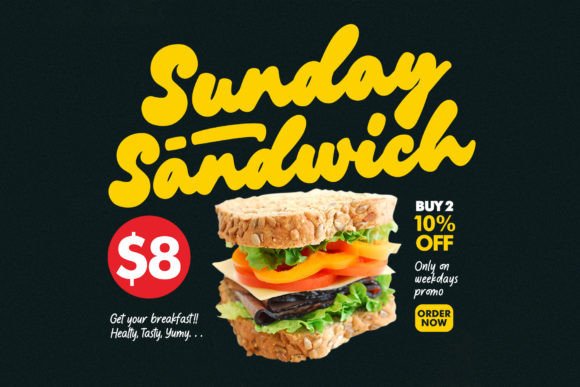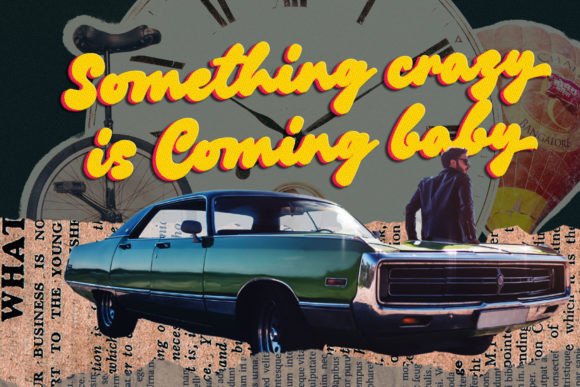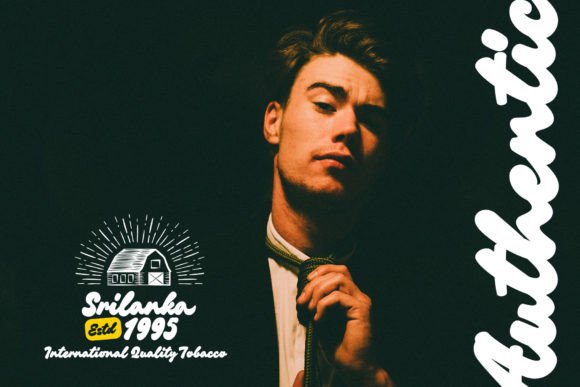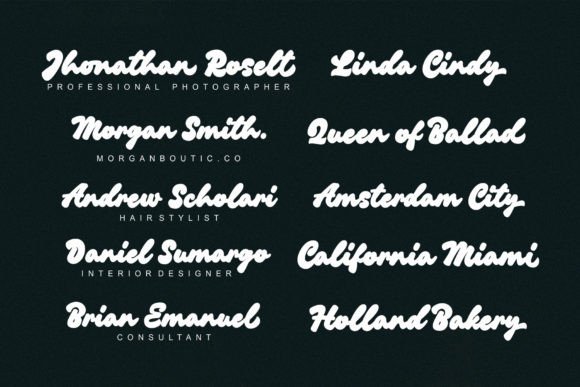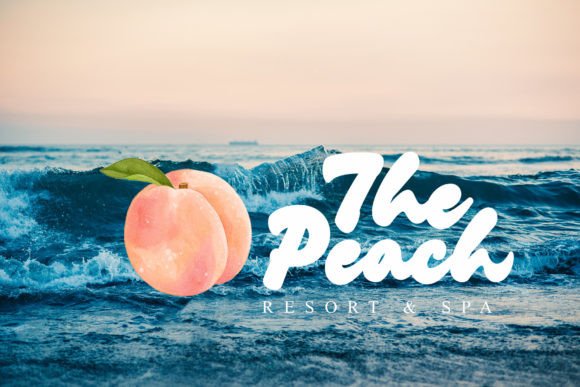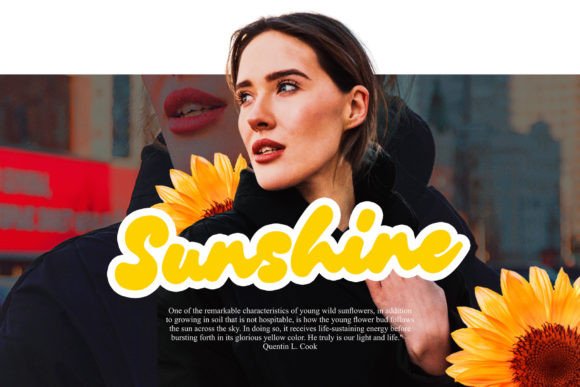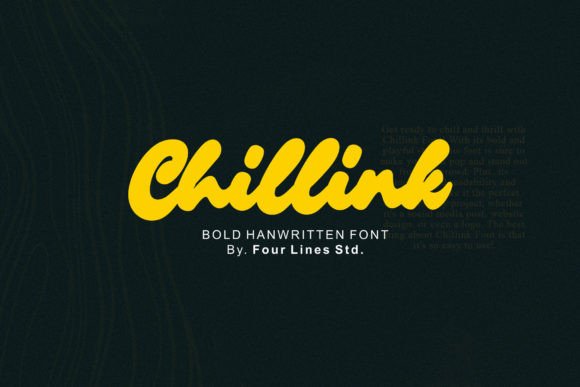
Introducing Chillink Font: The Ultimate Choice for Bold and Playful Designs
In the world of typography, fonts play a crucial role in conveying the tone and personality of a brand or design. With countless options available, finding the perfect font that combines style, readability, and versatility can be a daunting task. However, if you’re looking for a font that can make your text pop and stand out from the crowd, look no further than Chillink Font. In this article, we’ll explore the features and benefits of Chillink Font, and why it’s becoming a favorite among designers and crafters.
Unparalleled Readability and Versatility
Chillink Font boasts unparalleled readability, making it an excellent choice for a wide range of projects. Whether you’re designing a social media post, website, logo, invitation, or flyer, this font ensures that your message is conveyed clearly and effectively. Its versatility is unmatched, allowing you to use it in various contexts without compromising on style or legibility.
Bold and Playful Style
Chillink Font’s bold and playful style is its most striking feature. The font’s unique design makes it perfect for grabbing attention and adding a touch of personality to your designs. Its boldness ensures that your text stands out, even in crowded environments, while its playful style adds a friendly and approachable tone to your message.
Chillink Font is an excellent choice for designers and crafters who want to add a professional touch to their work. With its wide range of applications, this font is suitable for various projects, including:
- Social media posts: Make your social media posts stand out with Chillink Font’s bold and playful style.
- Website design: Use Chillink Font to create visually appealing headings, titles, and captions for your website.
- Logos: Create a lasting impression with Chillink Font’s unique and memorable design.
- Invitations: Add a touch of personality to your invitations with Chillink Font’s playful style.
- Flyers: Make your flyers stand out with Chillink Font’s bold and attention-grabbing design.
Benefits of Using Chillink Font
Using Chillink Font offers several benefits, including:
- Improved readability: Chillink Font’s clear and concise design ensures that your message is conveyed effectively.
- Increased versatility: Use Chillink Font in various contexts without compromising on style or legibility.
- Enhanced creativity: Chillink Font’s bold and playful style inspires creativity and adds a touch of personality to your designs.
- Professional look and feel: Use Chillink Font to give your designs a professional and polished look.
Tips for Using Chillink Font
To get the most out of Chillink Font, here are some tips to keep in mind:
- Experiment with different sizes: Chillink Font looks great in various sizes, from small headings to large titles.
- Pair with complementary fonts: Pair Chillink Font with complementary fonts to create a unique and visually appealing design.
- Use in combination with images: Use Chillink Font in combination with images to create a striking and effective design.
In conclusion, Chillink Font is an excellent choice for designers and crafters who want to add a bold and playful touch to their designs. With its unparalleled readability, versatility, and unique style, this font is sure to make your text pop and stand out from the crowd. Whether you’re working on a social media post, website design, logo, invitation, or flyer, Chillink Font is the perfect choice for any project.